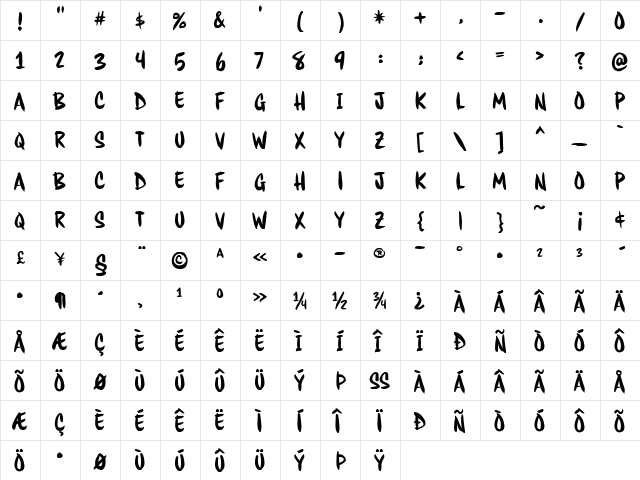
HouseMovementsTT-Poster Regular
| Foundry | Andy Cruz |
| Designer | Andy Cruz |
Design Context for HouseMovementsTT-Poster Typeface
HouseMovementsTT-Poster is a composed and adaptable typeface that performs quietly and consistently across a wide range of design contexts.